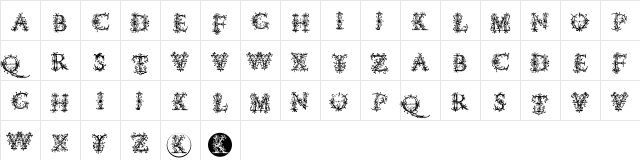
VespasiansFlorials Regular
Design Context for VespasiansFlorials Typeface
VespasiansFlorials is a composed and adaptable typeface that performs quietly and consistently across a wide range of design contexts.